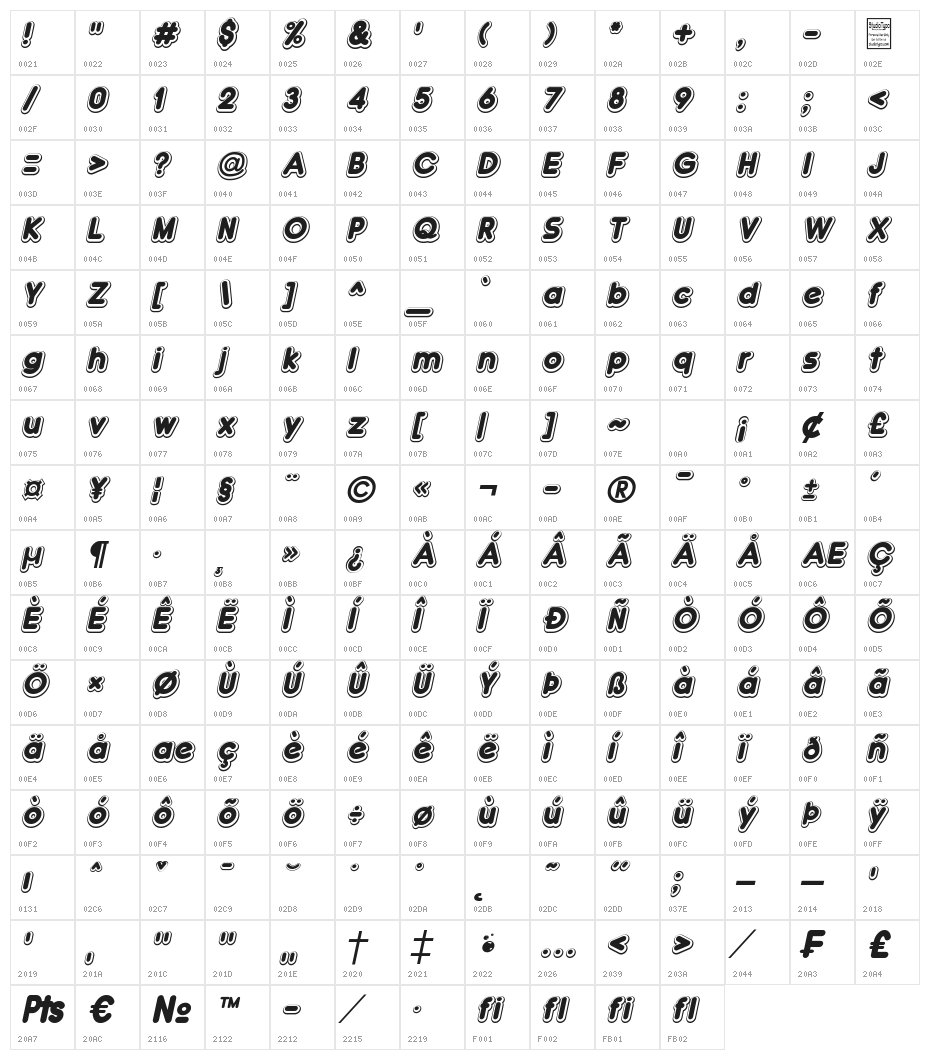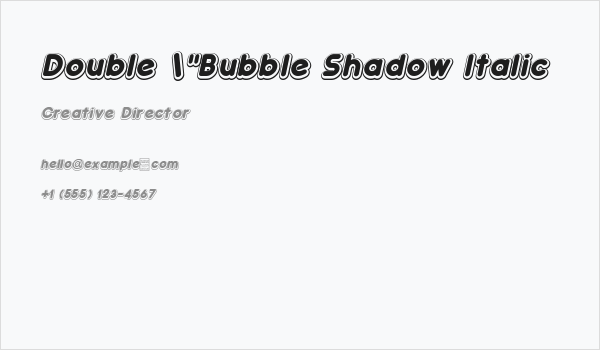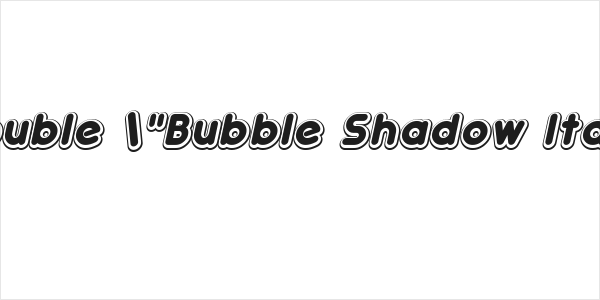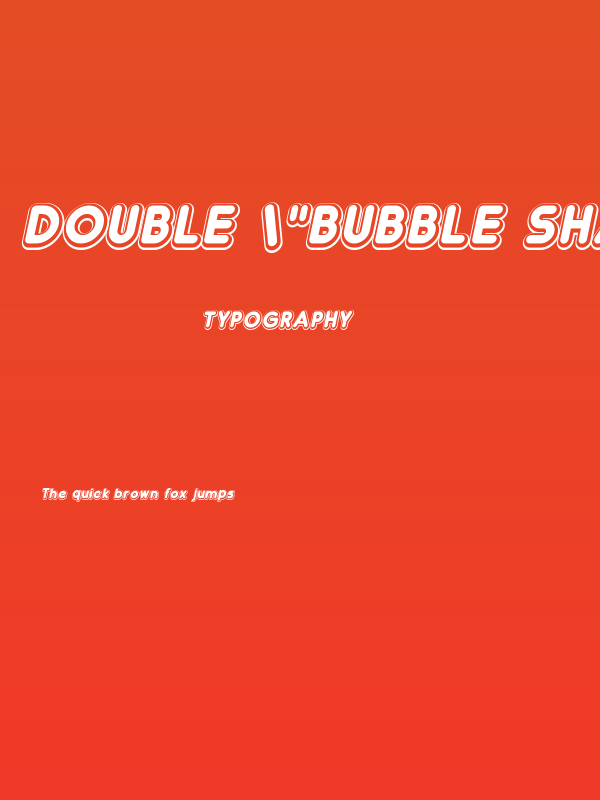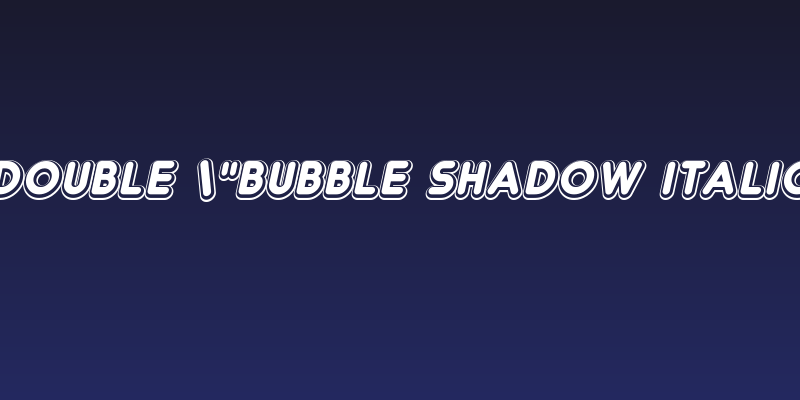
Double "Bubble Shadow Italic Font
Double "Bubble Shadow Italic Description
This playful and bold font features a unique double-layered shadow effect that gives it a three-dimensional appearance. The letters are rounded and thick, with a consistent stroke width that adds to its boldness. The italic slant adds a dynamic and energetic feel, making it stand out in any design. Each character is outlined with a shadow that enhances its visibility and creates a striking visual impact. The font includes a full set of uppercase and lowercase letters, numbers, and a variety of special characters, making it versatile for different uses.
| Overall Style | Playful, Modern |
| Proposed Projects | Ideal for children's book covers, playful branding, posters, and any project needing a fun and eye-catching typeface. |